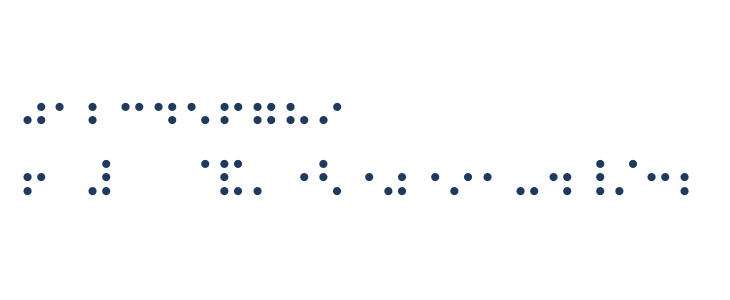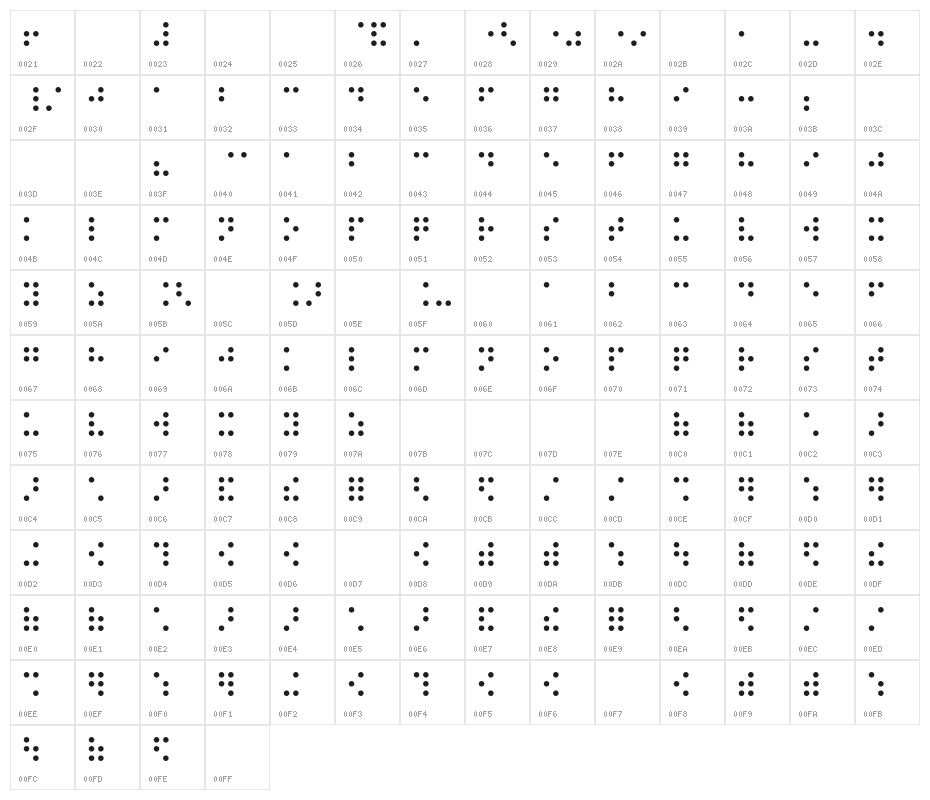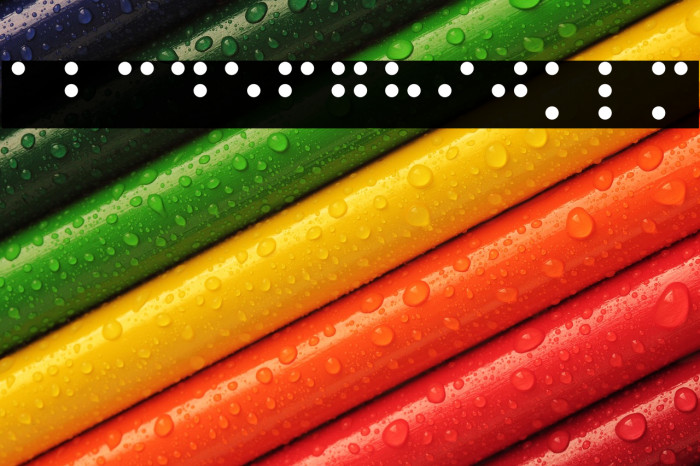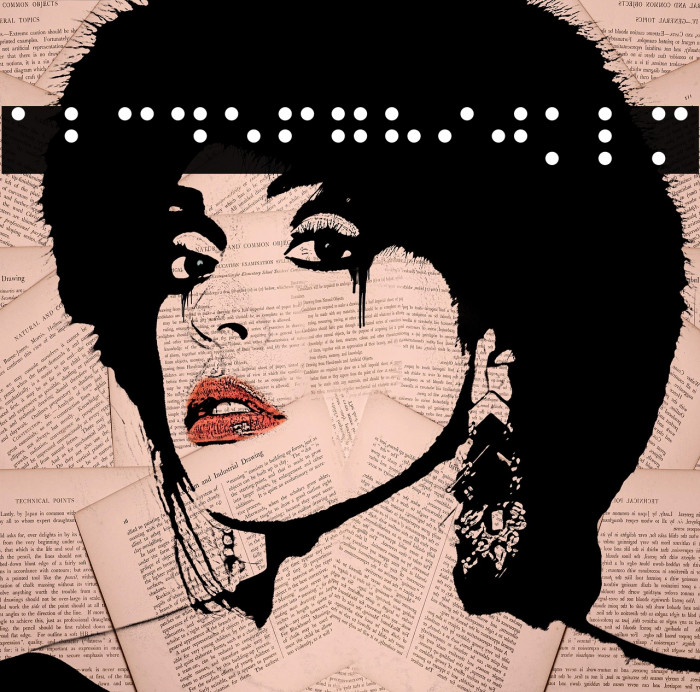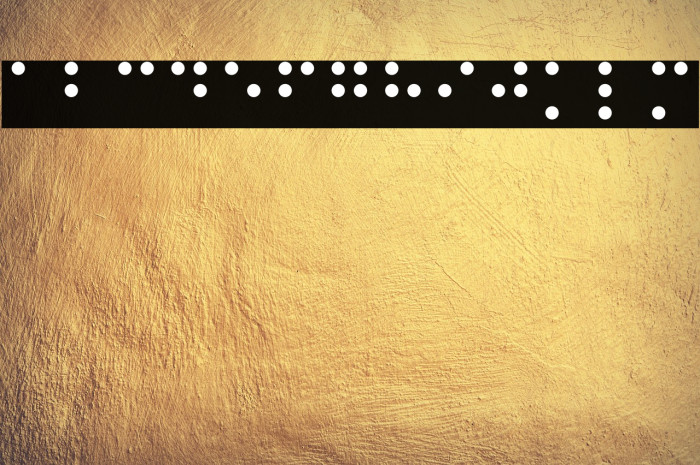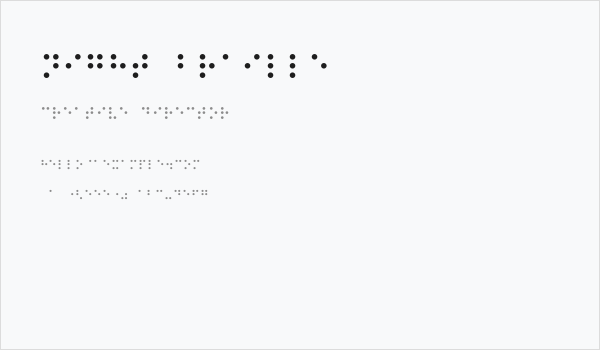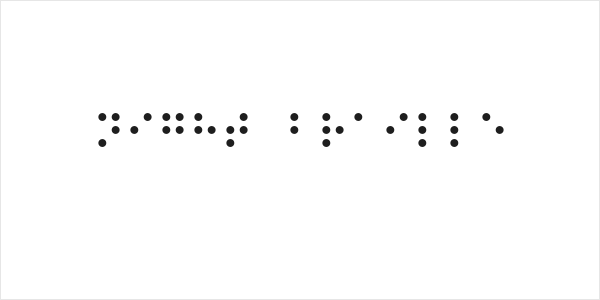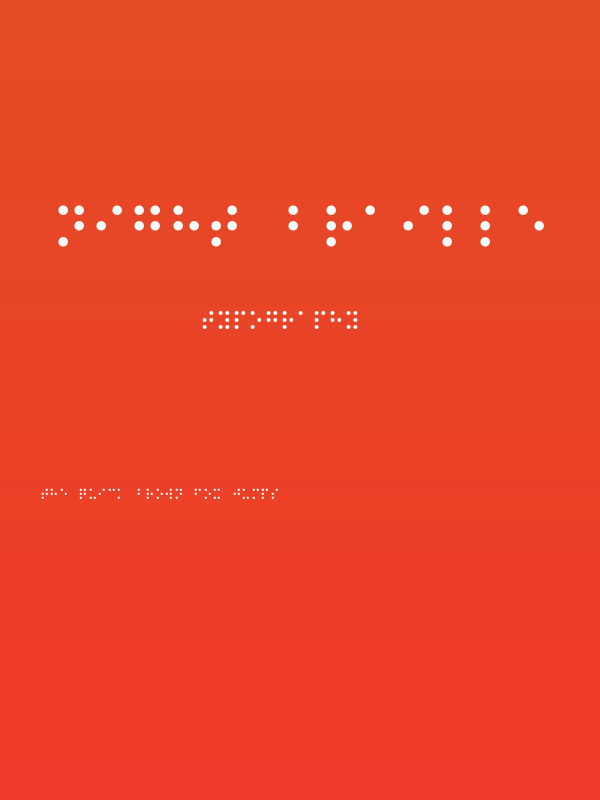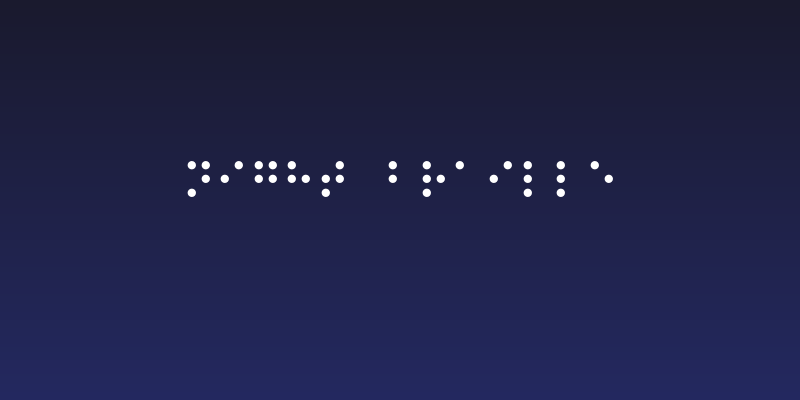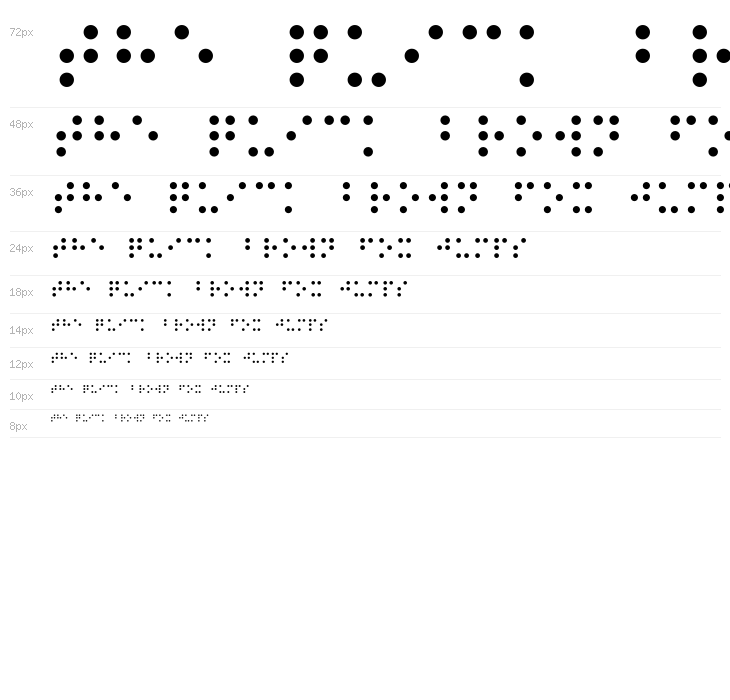
Night Braille Font
Night Braille Description
A tactile dot-based type system designed for visually impaired users, featuring evenly spaced, raised circular dots arranged in rectangular cells to represent letters, numbers, and symbols.
| Overall Style | Functional, Accessible |
| Use Case | Tactile reading, Accessibility tools, Educational resources |
| Proposed Projects | Accessible signage, educational materials for the blind, braille books, tactile labels. |